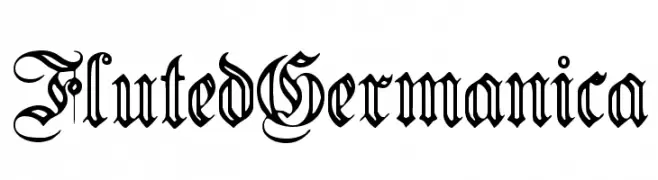
A bold, angular font with a medieval, rune-like style.
A bold, angular blackletter-inspired font with a modern twist.
A bold, gothic-inspired font with sharp serifs and high contrast strokes.
A jagged, edgy font with a hand-drawn appearance and sharp, angular lines.
A decorative blackletter font with intricate, gothic-inspired letterforms.
A traditional Blackletter font with intricate, angular letterforms.